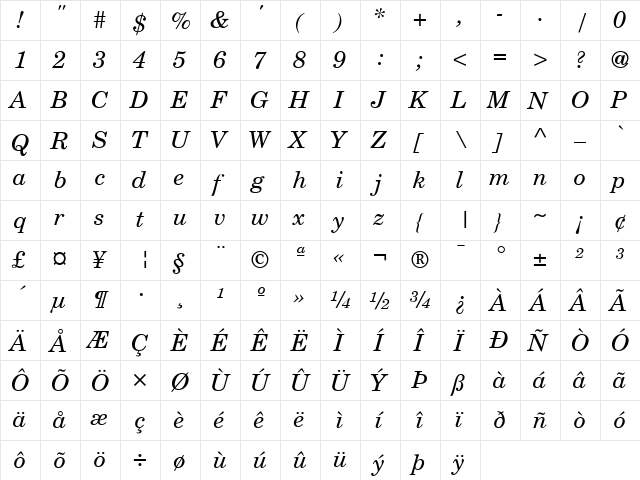
New Century Schoolbook Italic
Design Context for New Century Schoolbook Typeface
New Century Schoolbook is a composed and adaptable typeface that performs quietly and consistently across a wide range of design contexts. Its italic angle brings a sense of urgency and motion to the letterforms.
Pro Tip: Use New Century Schoolbook for emphasis, pull quotes, and subheadings where its slanted energy can add rhythm to the layout.